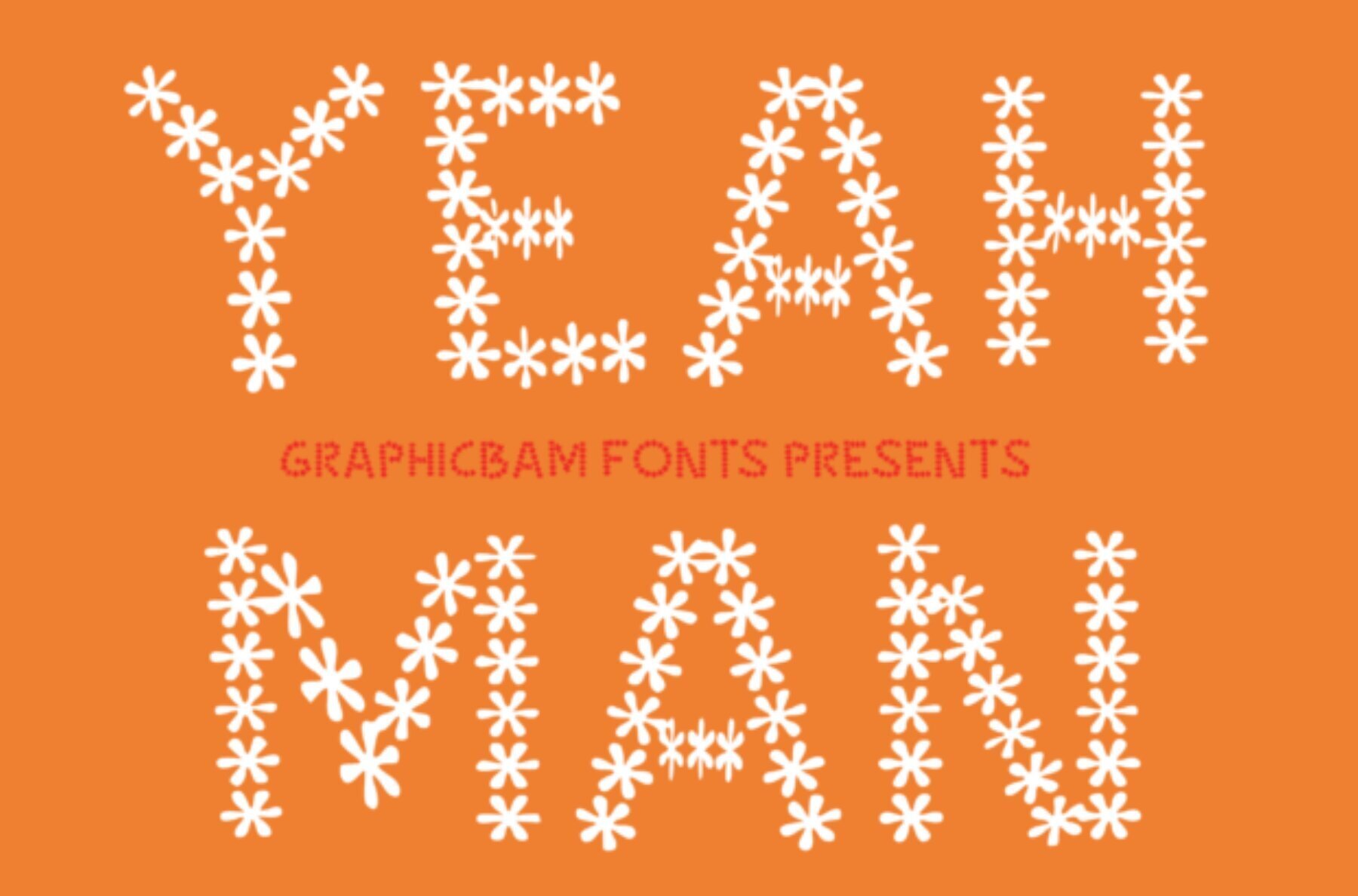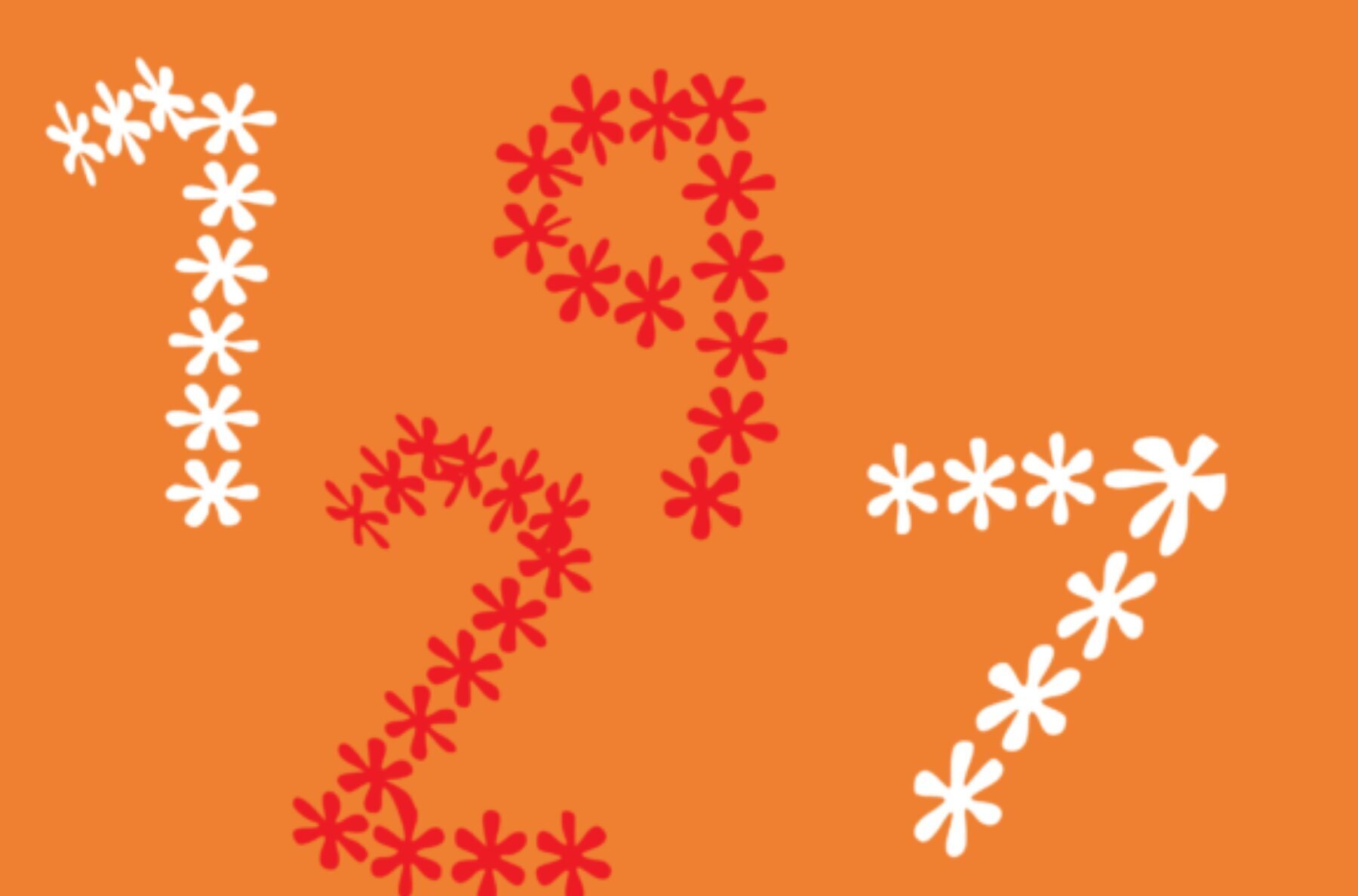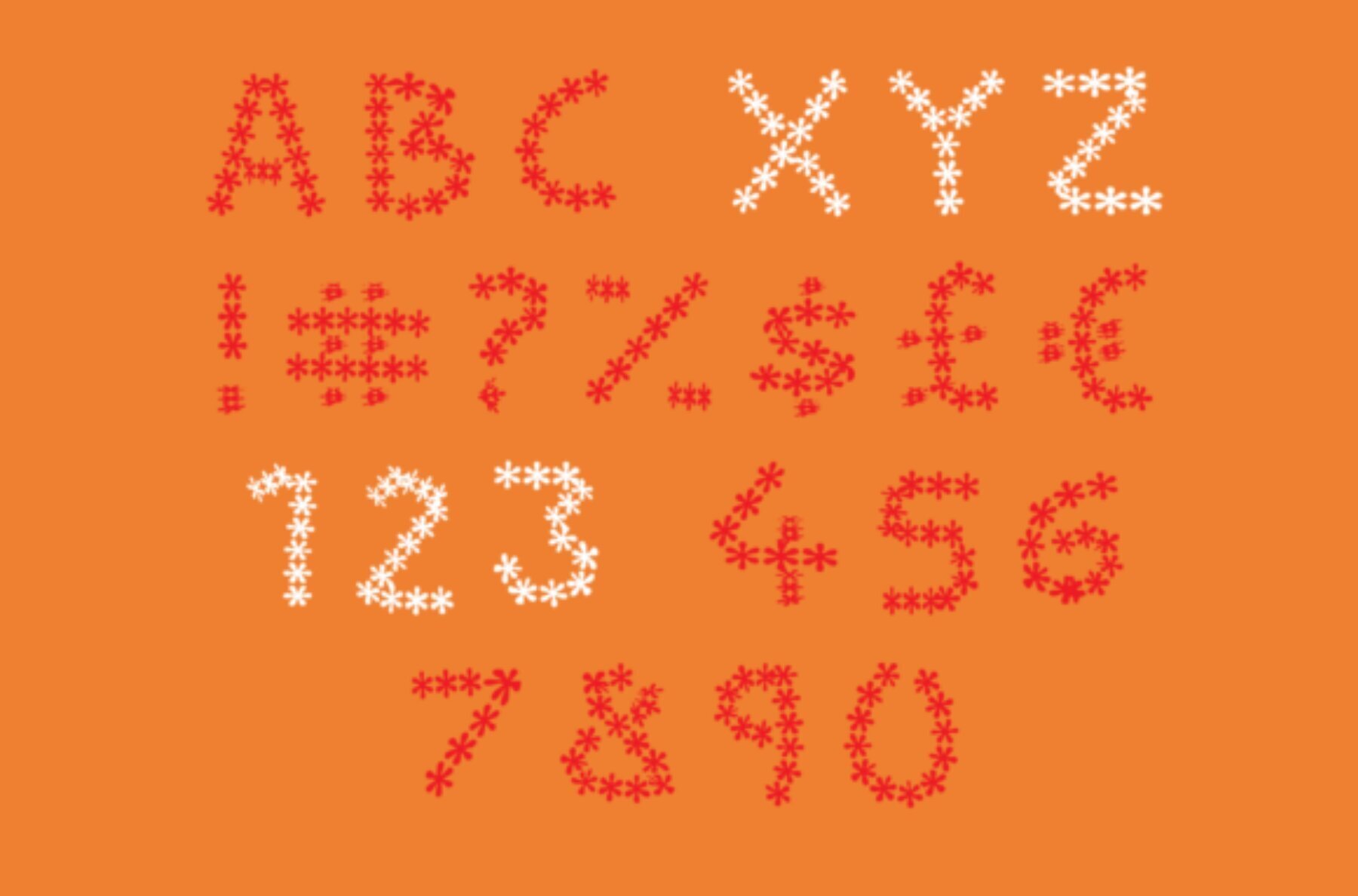
Yeah Man Font
Yeah Man
Embrace the vibrant charm of the Yeah Man font, a whimsical choice for all your creative endeavors. With its flower-inspired design, this decorative font breathes life into cartoon projects, children's games, and any artwork needing a playful flair. Bring a burst of joy to your designs with Yeah Man, perfect for adding a lovely and unique touch.Yeah Man Decorative Font